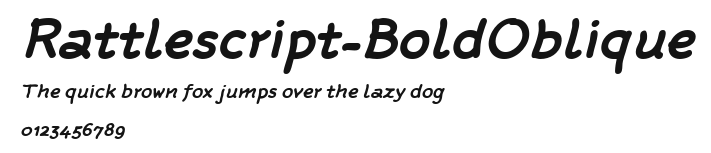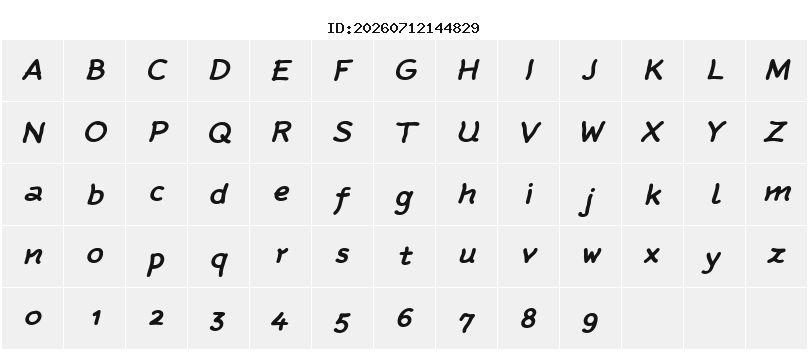
Rattlescript-BoldOblique Preview
• Font Name: Rattlescript-BoldOblique
• Full Font Name: Rattlescript-BoldOblique
• PostScript Name: Rattlescript-BoldOblique
• Manufacturer: Marten Thavenius, published by Fontshop International for the FontFont library
About Rattlescript-BoldOblique.ttf
Rattlescript-BoldOblique.ttf is a modern, elegant sans-serif font designed for ultimate readability and visual harmony. Perfect for branding, headlines, web design, and print materials.